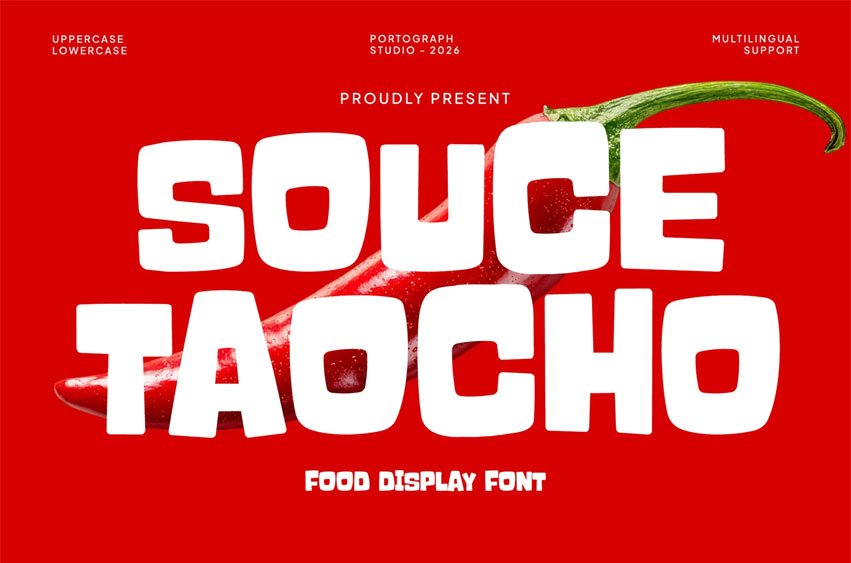
Souce Taocho Font
Souce Taocho Font is a bold and playful display font crafted for eye-catching food branding and modern promotional designs.
Featuring chunky letterforms, strong visual impact, and a fun urban personality, this font is perfect for creating standout headlines, logos, posters, packaging, and social media content.
Feature:
• Uppercase
• Lowercase
• Ligatures
• Numerals
• Punctuation
Perfect For:
• Food Branding
• Restaurant Logos
• Burger Posters
• Cafe Packaging
• Street Food Design
• Social Media Graphics
• Menu Design
• Product Packaging
• Sticker Design